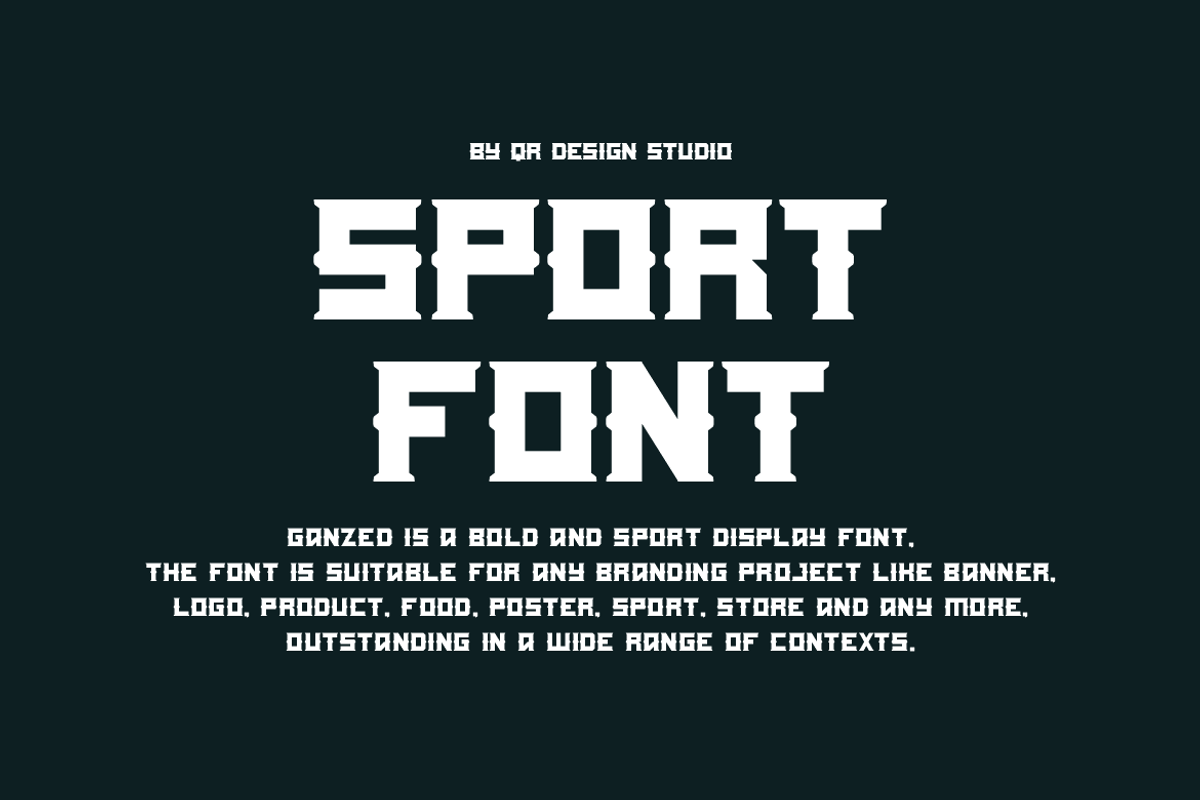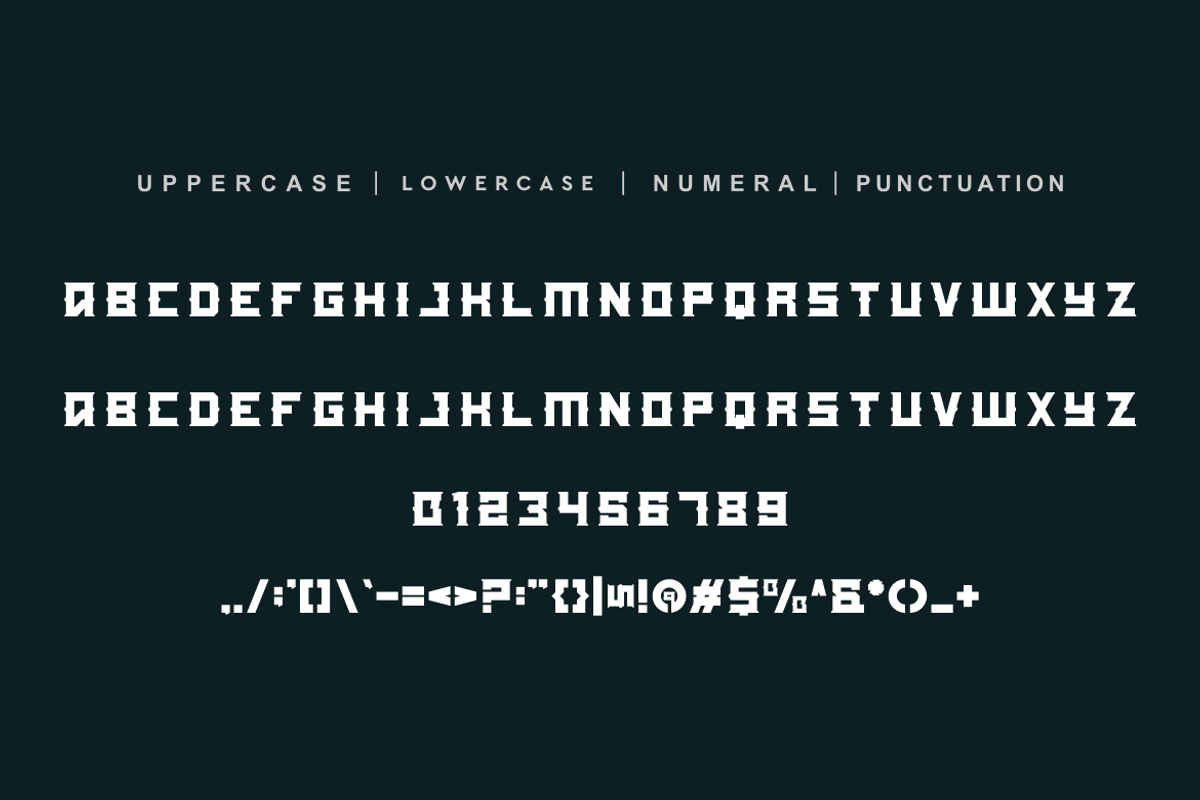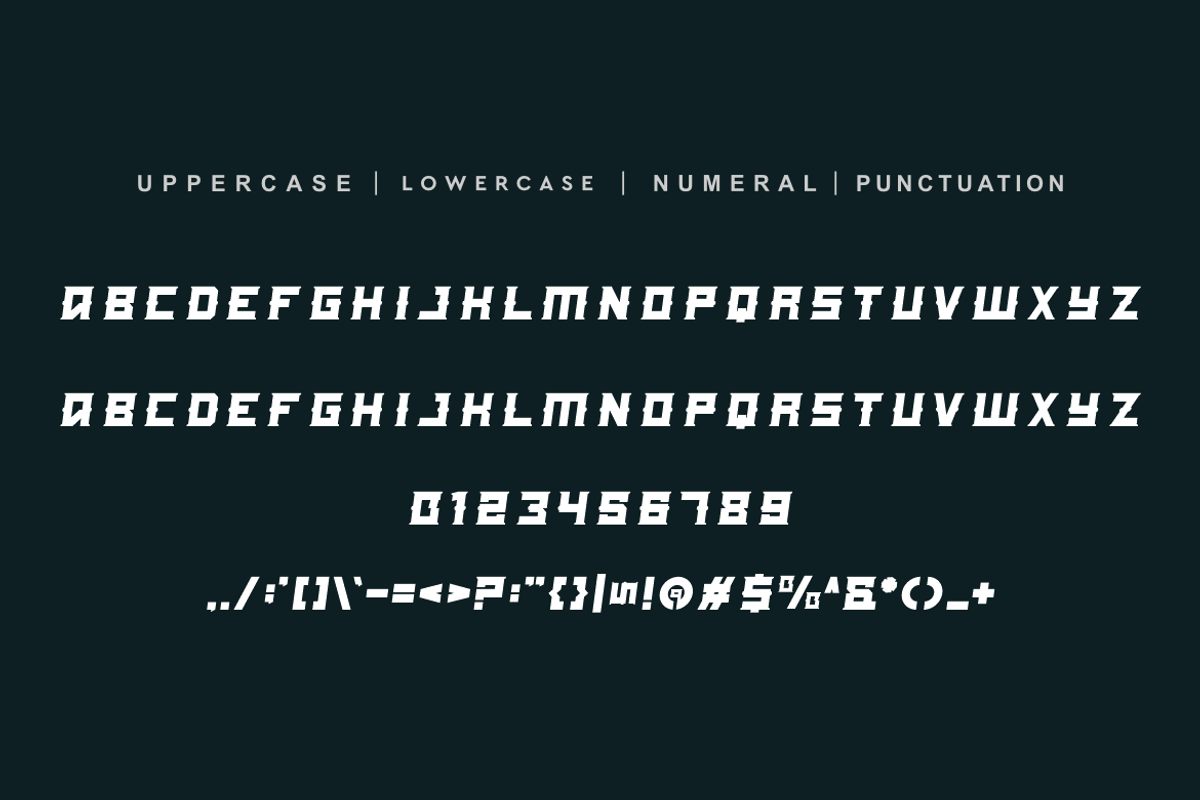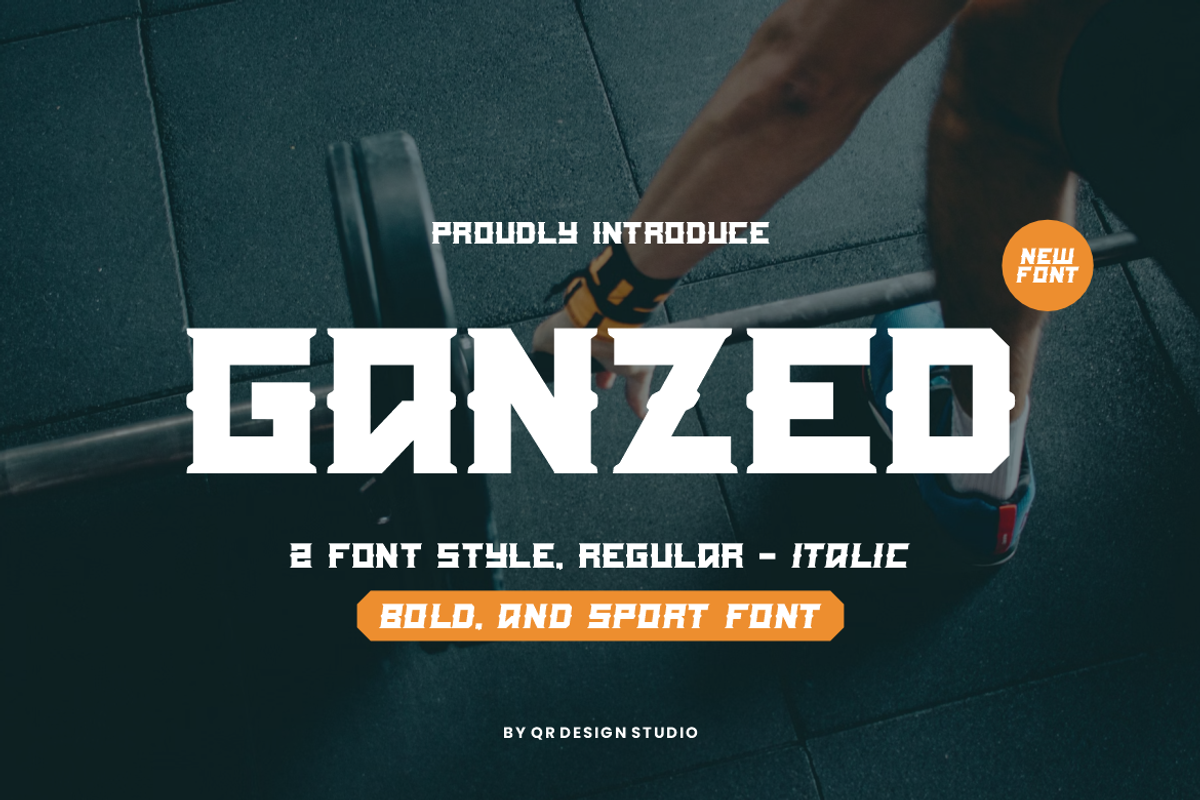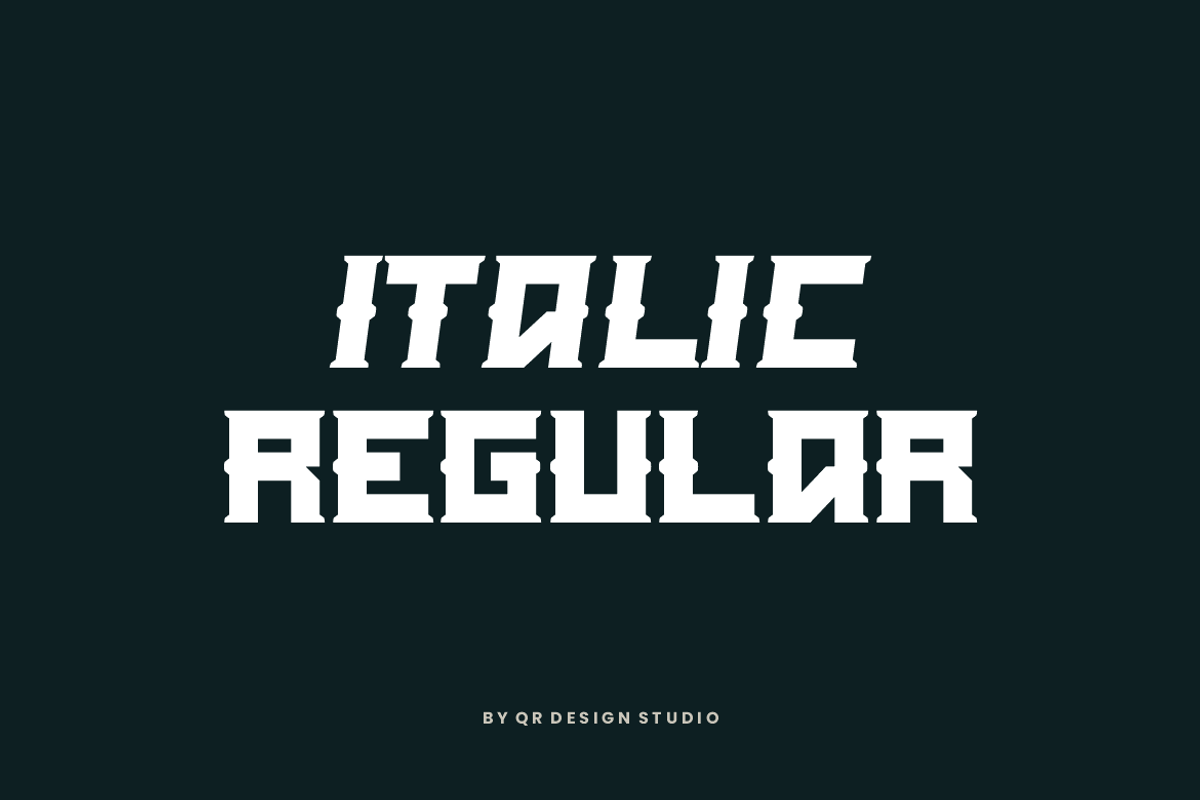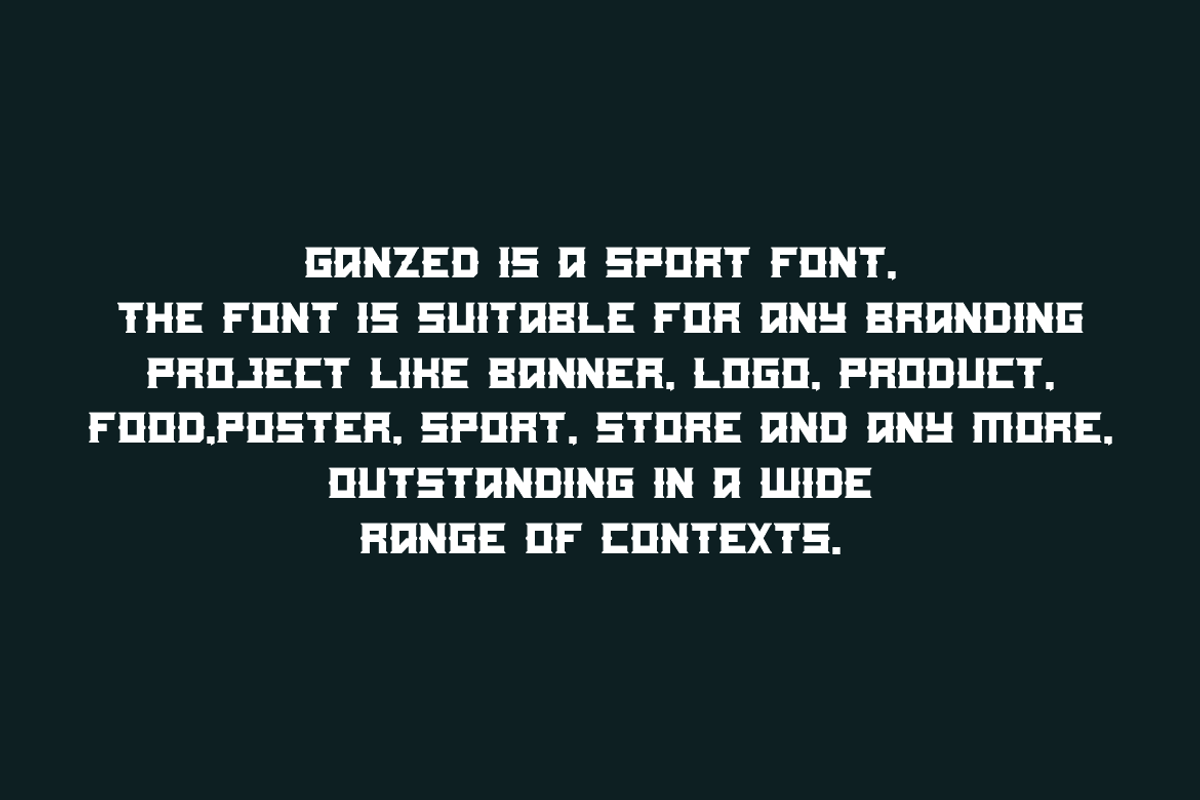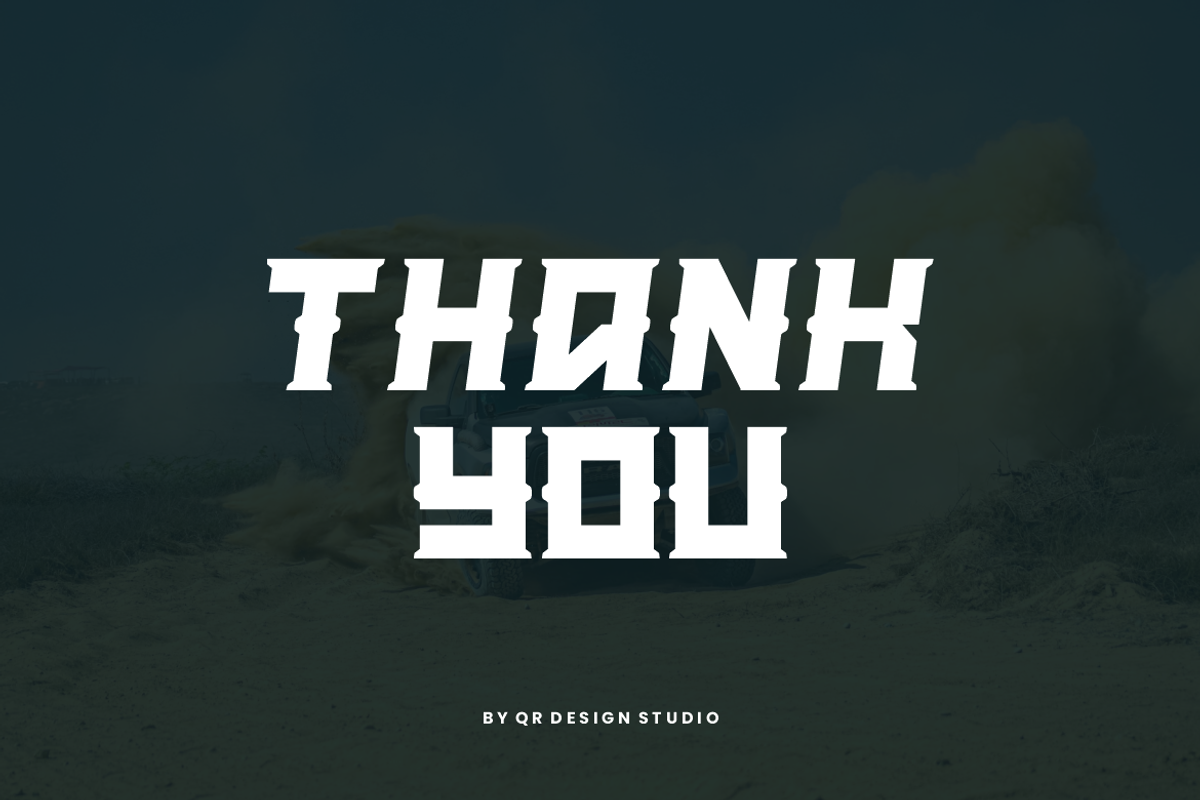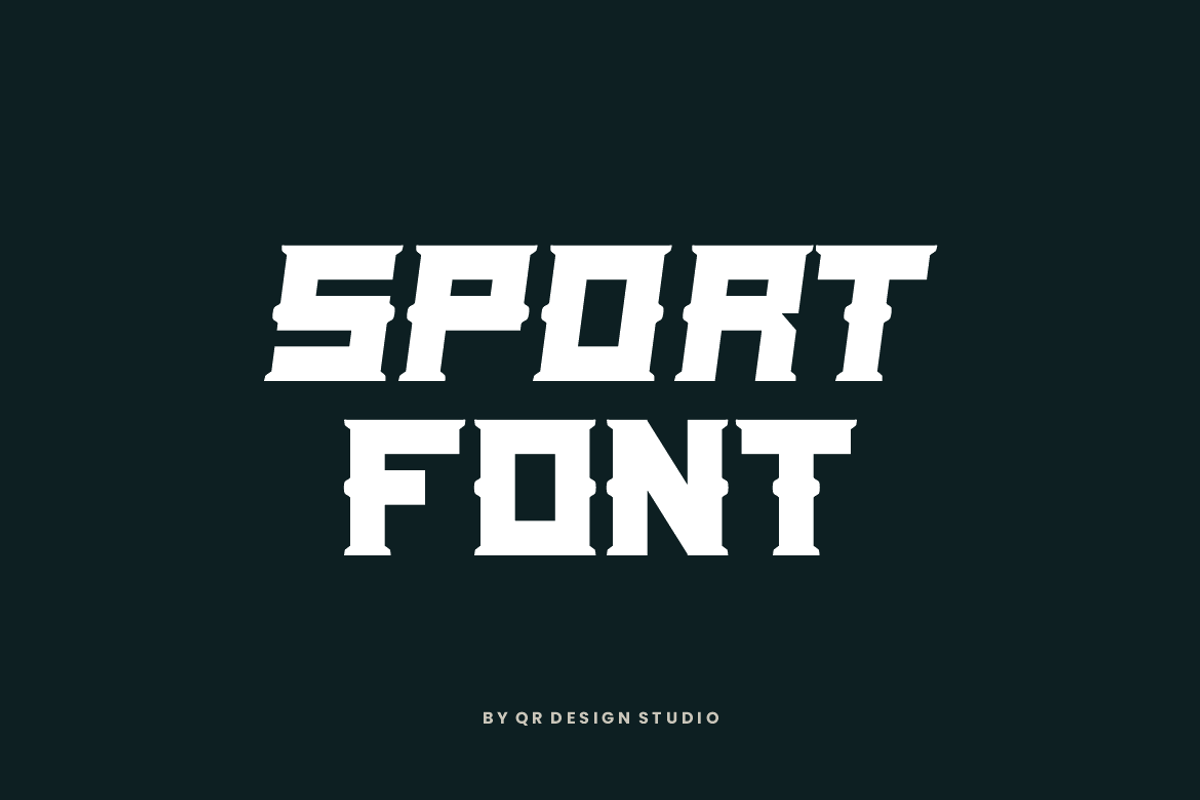
Ganzed - Italic & Sport Font Duo
Ganzed Font is a bold and authentic display font. The font is suitable for any branding project like poster, logo, sport, and many more. Outstanding in a wide range of contexts.